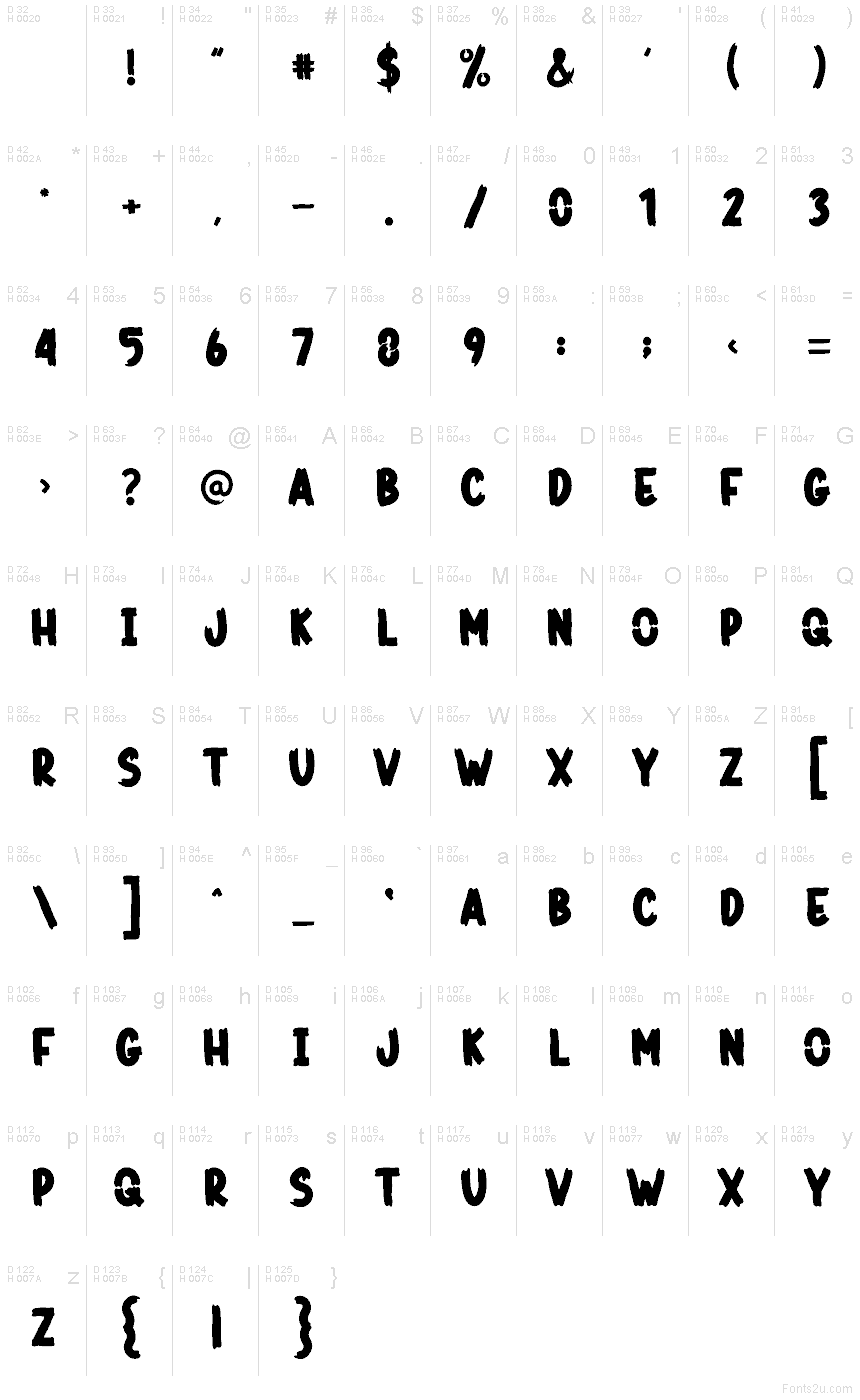
Scary Movie
\nScary Movie font by Scratchones is all in all scary, with its irregular character shapes and rough edges. This bold display typeface features horror-inspired handwriting whose letters contain uneven shapes. Whether it is for prints or digital use, the free font will add a significant unsettling touch to any heading or text.
Halloween projects benefit the most from Scary Movie, and accordingly, personal posters, greeting cards, postcards, banners, invitations for parties can all use this asset. Business posters promoting events related to Halloween are also perfect settings for applying this tool; such an event can be an exhibition or cinema night inside shopping malls etc.